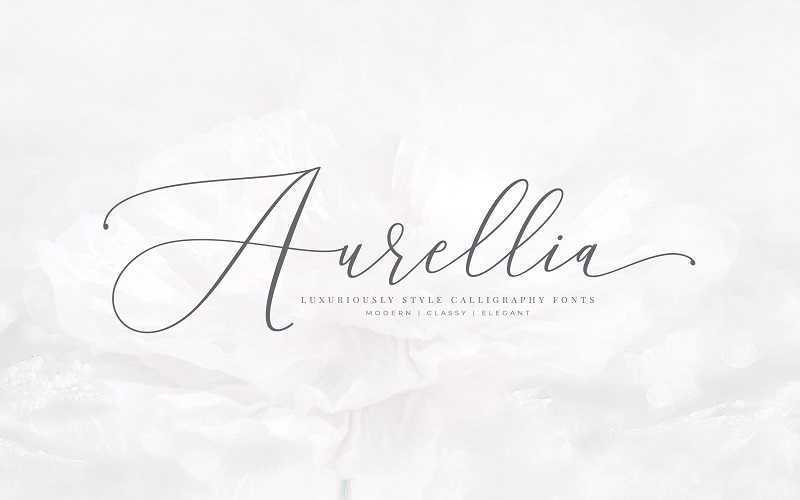
Aurellia Script Font
Introducing Aurellia. It is designed by AQR Typefoundry, this is a premium font, are sold on creativemarket, but it was great, it is free today for download. Aurellia is a classy handwriting font with a distinctive curve, inside with some interesting features that are perfect for a feminine-style project. Aurellia have a features start and end swashed on uppercase and lowercase letters, very beautiful ligature and this font is very qualified when you use for wedding design projects, fashion, greeting, invitation, social media and much more.